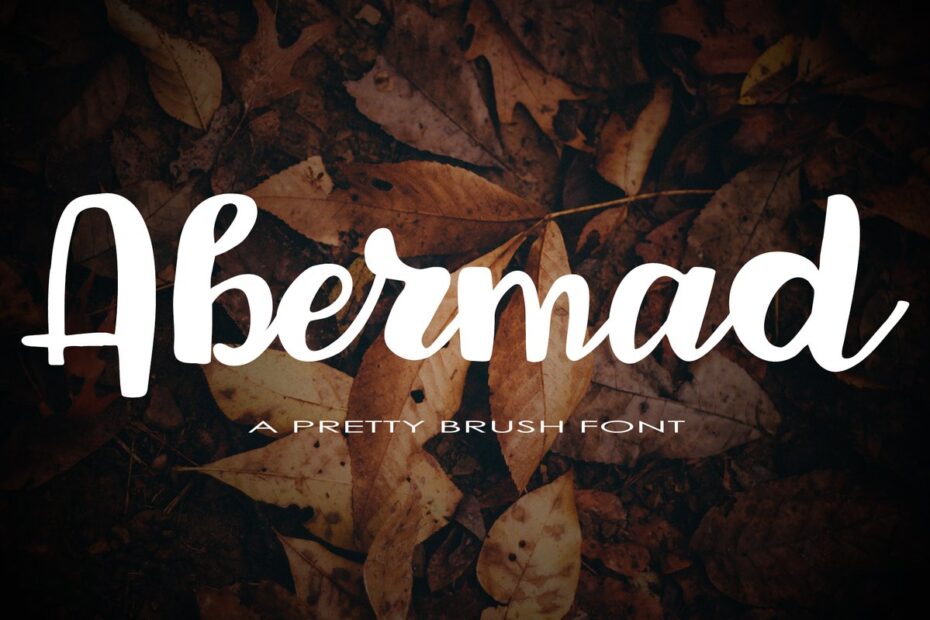
Discover the Timeless Charm of Abermad Font
There’s something magical about the moment when a design idea comes together – the rush of excitement, the sense of possibility, and the thrill of bringing a concept to life. For many creatives, this feeling is the driving force behind their work, pushing them to experiment, innovate, and push boundaries. And when it comes to adding a touch of personality to a design, few fonts are as effective as Abermad Font.
Abermad Font is a beautiful, soft script that’s perfect for designers looking to inject a warm, friendly vibe into their work. With its elegant lines and charming character, this font is sure to add a ton of charm to any design. Whether you’re working on a branding project, a wedding invitation, or a social media campaign, Abermad Font is the perfect choice for anyone looking to create a lasting impression.
Abermad Font Key Features
- Unique Characteristics: Abermad Font features a unique blend of geometric and organic elements, resulting in a distinctive and modern aesthetic that is both elegant and sophisticated.
- Font Family: Abermad Font is a single-family font, making it easy to use and manage in your designs, with a comprehensive character set that includes over 200 glyphs.
- Language Support: The font supports a wide range of languages, including Latin, Cyrillic, and Greek scripts, making it a versatile choice for designers working on multilingual projects.
- Scalability: Abermad Font is designed to be highly scalable, making it suitable for use in a wide range of applications, from small text to large display typography.
Abermad Font Review
Overall, I’m impressed with the Abermad Font’s unique character and versatility. ✨ Its rounded edges and soft curves make it perfect for creating a friendly and approachable atmosphere in any design. I particularly like how it works well for headings and titles, adding a touch of whimsy and playfulness.
- Perfect for creating a friendly and approachable atmosphere
- Works well for headings and titles
- Rounded edges and soft curves add a touch of whimsy and playfulness
- Wide range of font sizes and styles to choose from
However, there are some limitations to consider. ⚠️ The font’s rounded edges can sometimes make it difficult to read at smaller font sizes. Additionally, the font’s width can be a bit inconsistent, which may affect the overall alignment of text.
- Difficult to read at smaller font sizes due to rounded edges
- Inconsistent font width can affect text alignment
- May not be suitable for formal or professional designs
Overall, I think Abermad Font is a great choice for creative and playful designs. While it may have some limitations, its unique character and versatility make it a standout option.
Tips for Getting the Most Out of Abermad Font
Abermad Font is a unique and elegant font that can add a touch of sophistication to your designs. Here are some tips for getting the most out of it:
1. Use it for headings and titles to create a sense of drama and emphasis.
2. Pair it with simple fonts for body text to create a clean and modern look.
3. Experiment with different font sizes and styles to create a unique visual hierarchy.
Abermad Font is ideal for:
1. Luxury branding and marketing materials.
2. High-end product packaging and labeling.
3. Elegant wedding invitations and stationery.